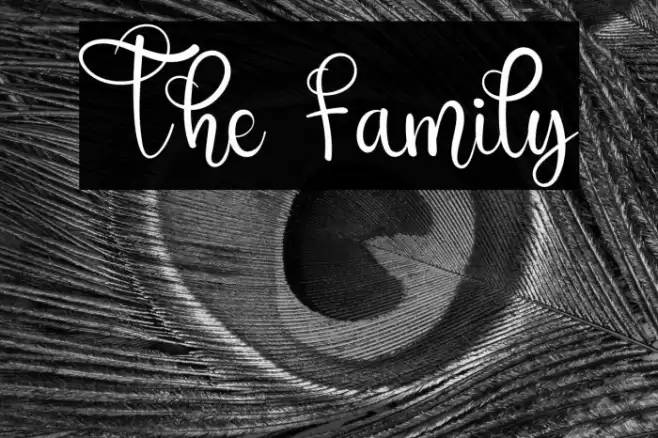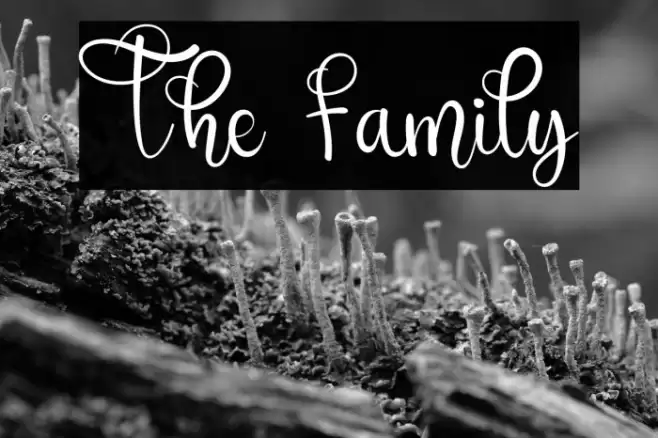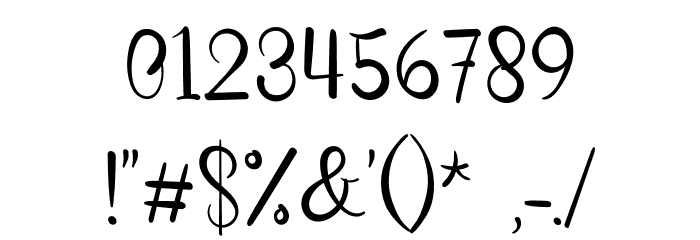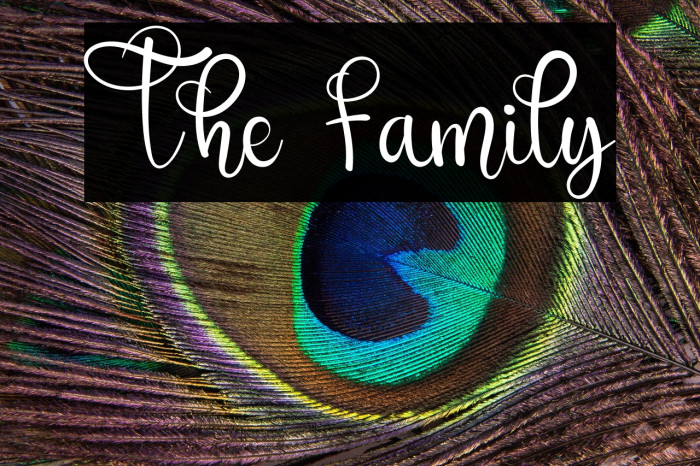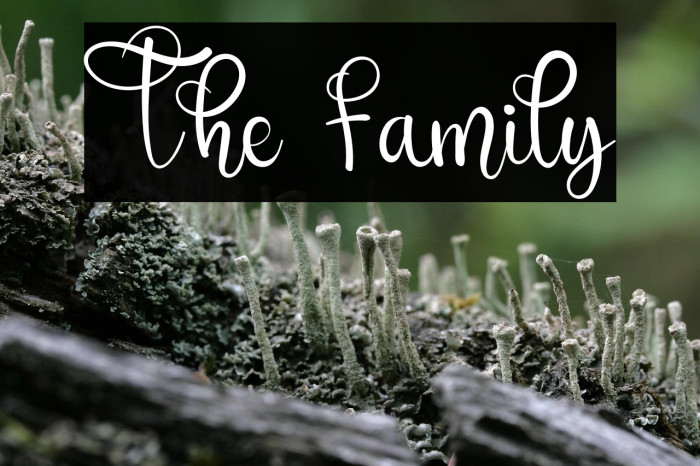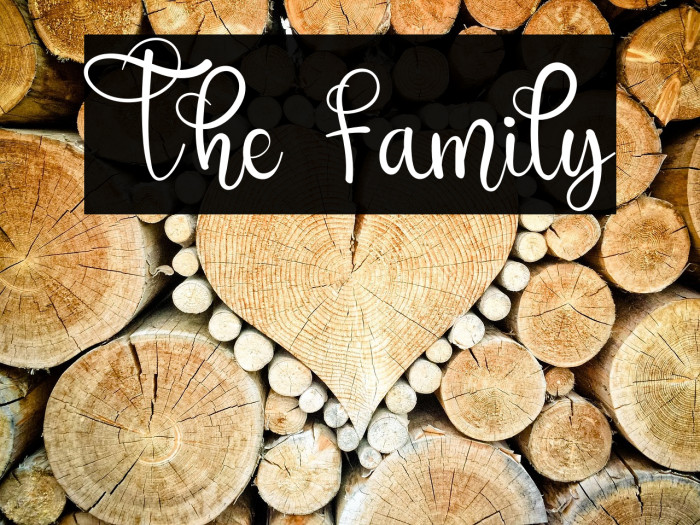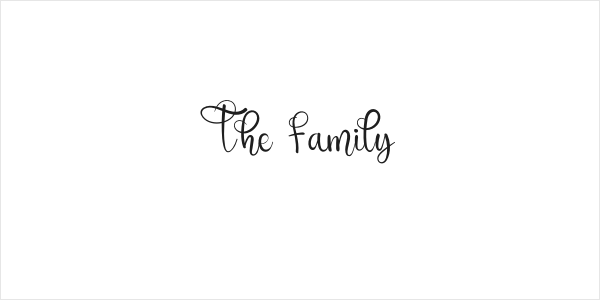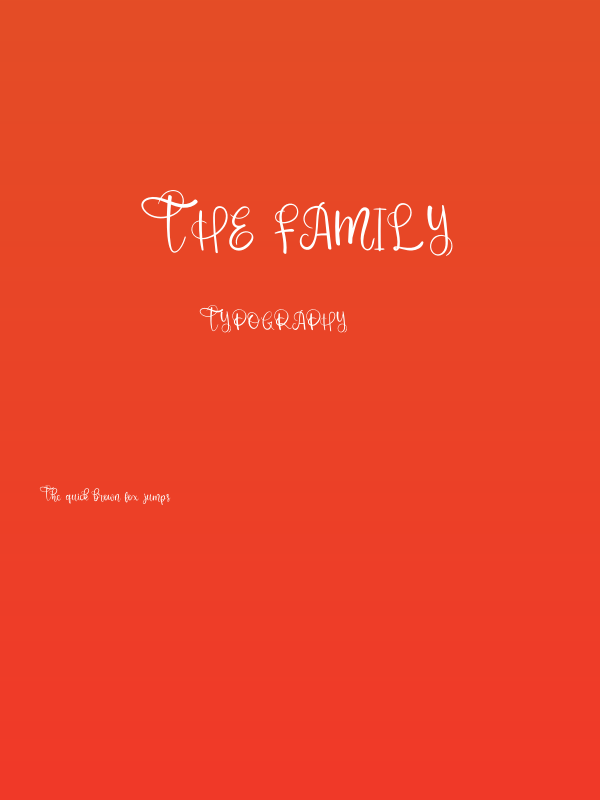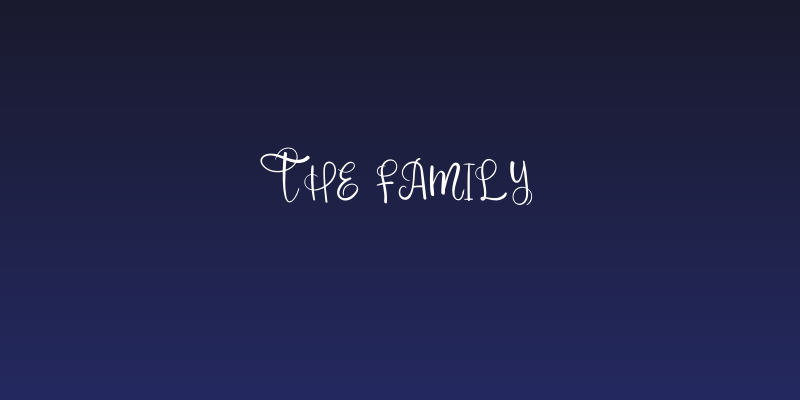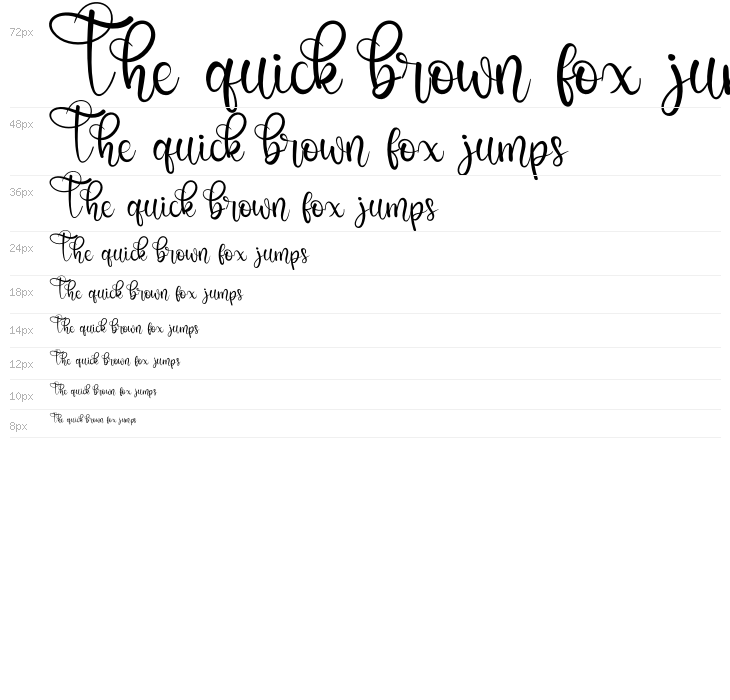
The Family Font
The Family Description
This font features a playful and whimsical script style, characterized by its flowing, interconnected letters and decorative flourishes. The uppercase letters are bold and expressive, with unique loops and curves that give them a lively appearance. The lowercase letters maintain a consistent style, with smooth, rounded shapes and a casual elegance. Numbers and special characters are designed to match the overall aesthetic, ensuring a cohesive look across all text. The font's artistic flair makes it ideal for creative projects that require a touch of personality and charm.
A playful and whimsical script font with decorative flourishes from Regular fonts.
- Proposed Projects: Ideal for wedding invitations, greeting cards, branding, and creative projects that require a personal touch.
- Use Case: Logos, Invitations, Creative projects